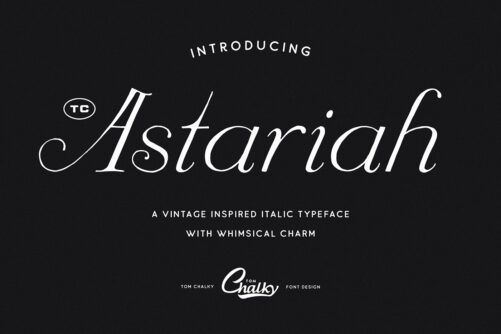
Astariah – Handwritten Vintage Italic Typeface
Whimsical, timeless, and elegant. Three words typically used to describe yours truly, and when one is introducing my latest typeface, Astariah. Drawing inspiration from typefaces of the late 1800s, Astariah is perfect for all designs requiring a splash of quirky elegance.